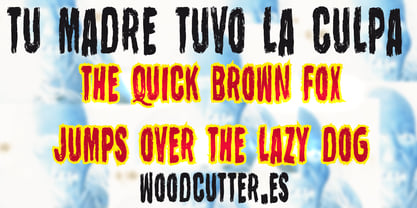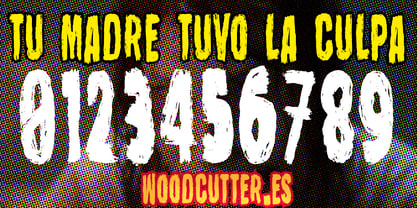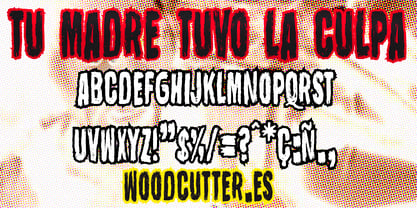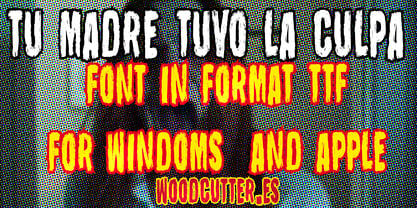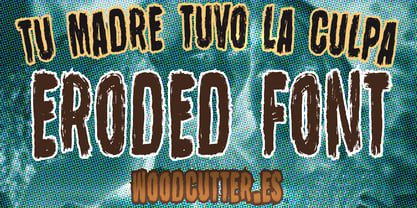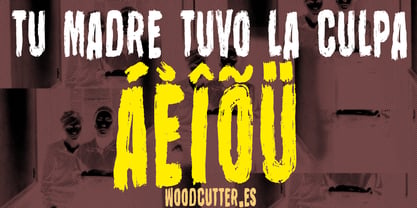
Tu Madre Tuvo La Culpa
The Tu Madre Tuvo La Culpa Font Family was designed by Jordi Manero and published by Woodcutter. Tu Madre Tuvo La Culpa contains 1 styles. More about this family
“Tu Madre Tuvo La Culpa” is an uppercase typeface that blends a horror pulp style with a worn and eerie finish. Its letters have a weathered appearance, as if they have endured the passage of time or a chaotic event, and it includes accents for full functionality. This design evokes the posters of classic horror films or pulp mystery novels, delivering a dark and dramatic vibe. Perfect for projects related to horror, suspense, or any retro aesthetic that demands a touch of visual intensity and decadence.